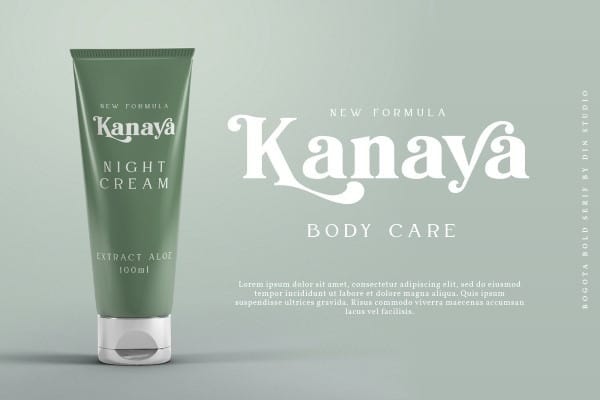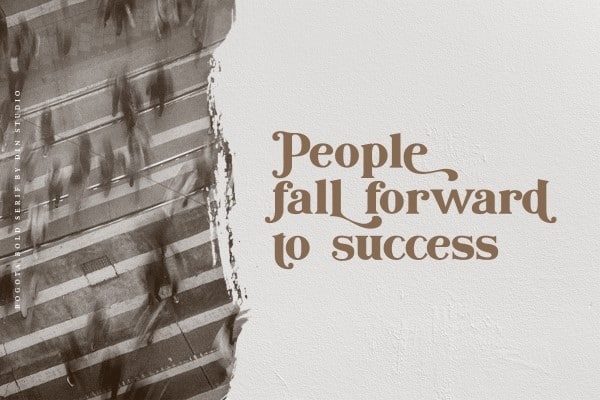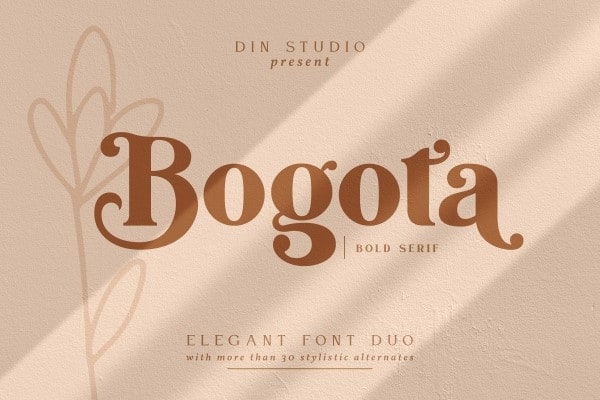
Bogota Serif Font
Bogota Serif Font is casual serif font. Made for any professional project branding. Every letter has a unique and beautiful touch. Made from font designer named Din Studio. This font is a modern and clean display (Serif) font. Create from our talented font designer. The design of typeface will make your design more beautiful and inspiring. This font will suitable for any project, like branding, print template, logo and etc. The font also available in a thin version (pairing font).